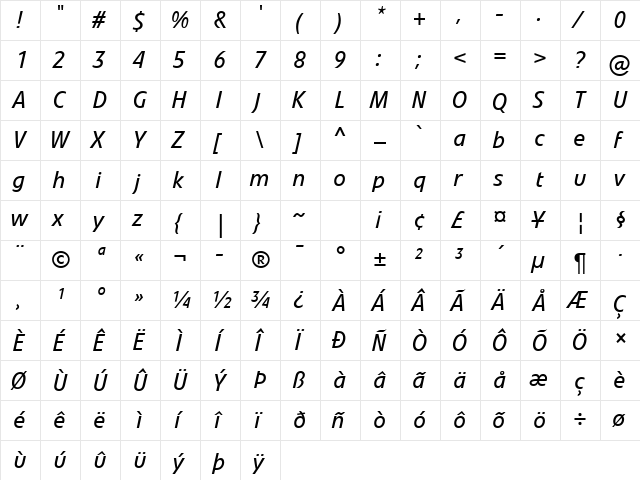
Veto Com Italic
| Foundry | Linotype GmbH |
| Designer | Marco Ganz |
Design Context for Veto Com Typeface
Veto Com takes a measured approach to typography — its balanced proportions and neutral character make it a reliable workhorse for both digital and print work. The slanted form adds forward momentum and visual energy.
Pro Tip: Use Veto Com for emphasis, pull quotes, and subheadings where its slanted energy can add rhythm to the layout.